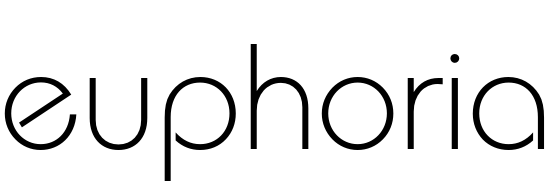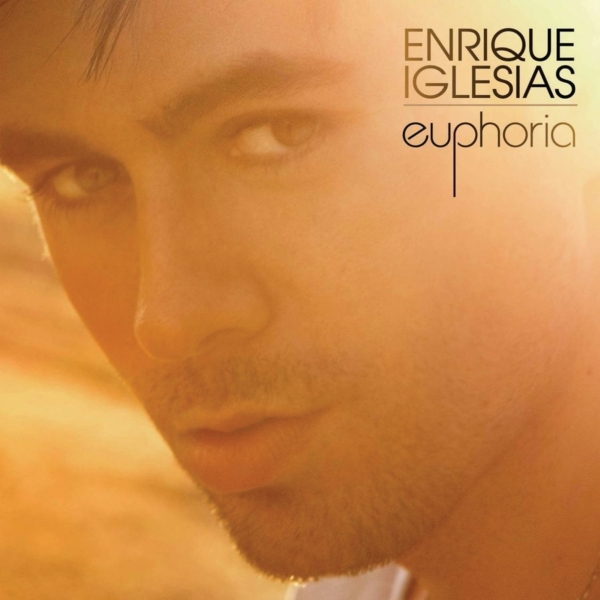
Euphoria (Album) Font
ElectronicEuphoria is the ninth studio album by Spanish singer Enrique Iglesias, released in 2010. The album features a mix of pop and dance tracks and includes hit songs such as "I Like It" and "Tonight".
The cover of the album features a geometric sans font, similar to ITC Bauhaus Light, for the title. The singer's name is set in another geometric sans, ITC Avant Garde Gothic Book.